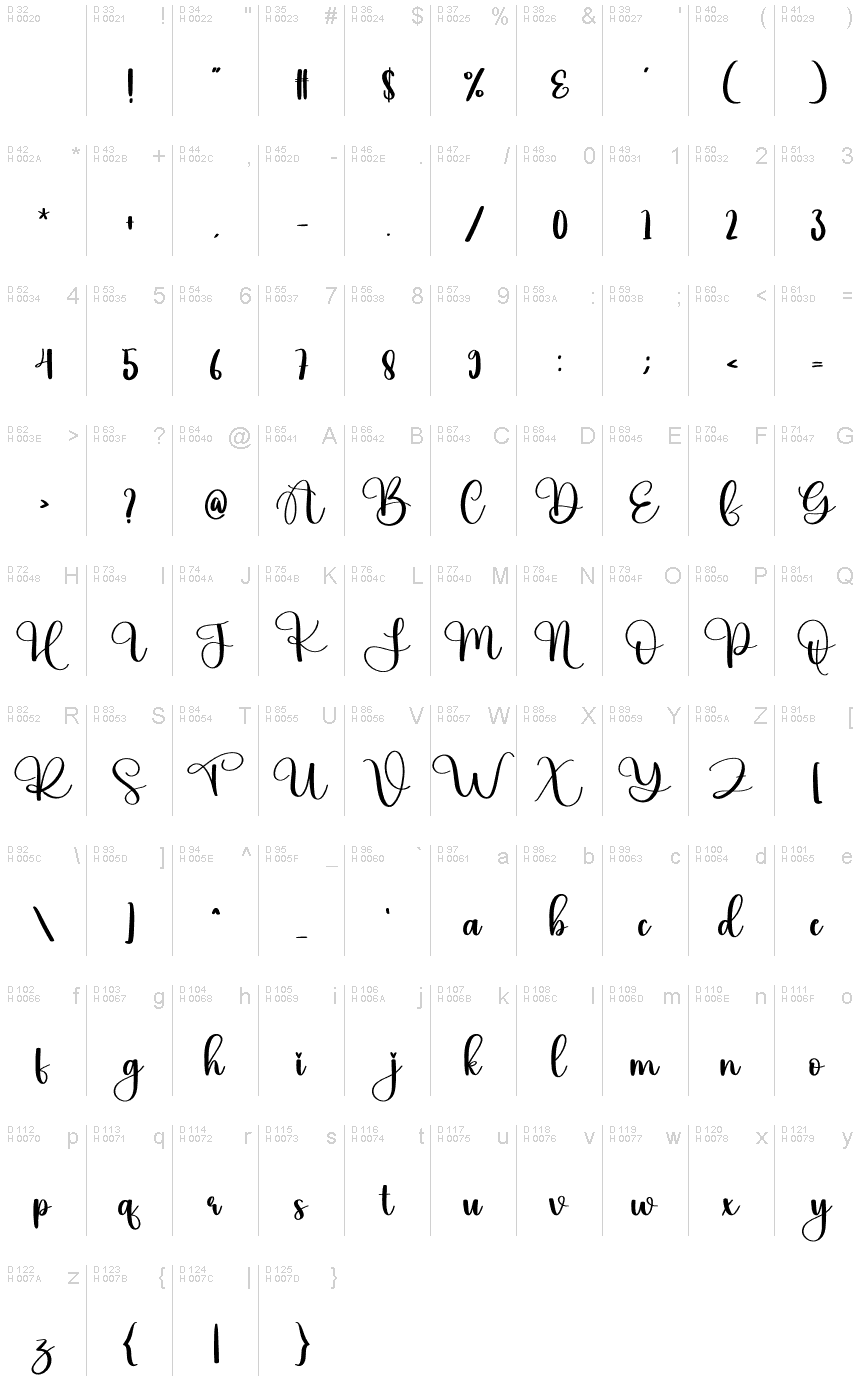
Lasting
Lasting, a captivating calligraphy font designed by scratchones, exudes elegance and grace with its semi-light weight. Its fluid strokes and graceful curves make it perfect for wedding invitations, love letters, and romantic projects. The versatile Lasting font adds a touch of sophistication to fashion magazines, luxury branding, and beauty products packaging. Its timeless appeal also suits inspirational quotes on social media graphics, creating an atmosphere of serenity and mindfulness. The Lasting font's delicate yet legible style strikes the right balance between uniqueness and readability, making it a must-have for any creative project seeking a touch of refined charm.
the latest style letters are perfect for wall displays, wedding invitations, social media post logos, advertisements, product packaging, product designs, labels, photography, watermarks, invitations, stationery, and any project that requires taste handwriting.